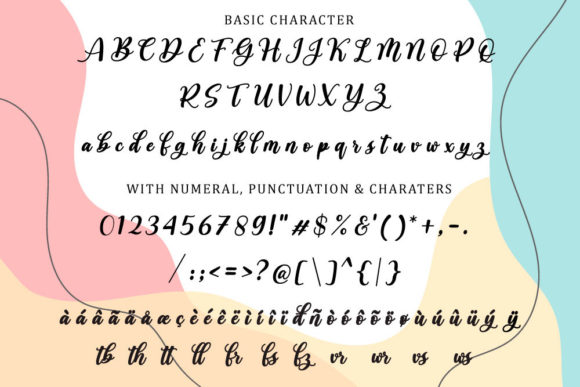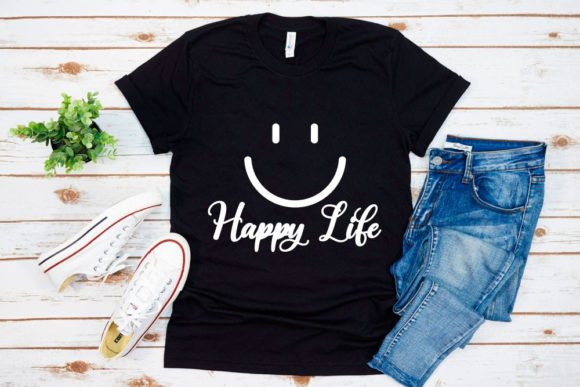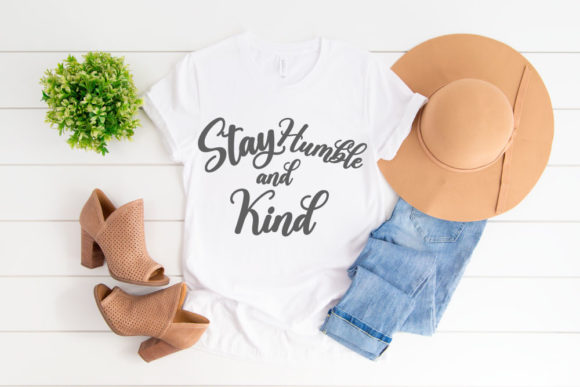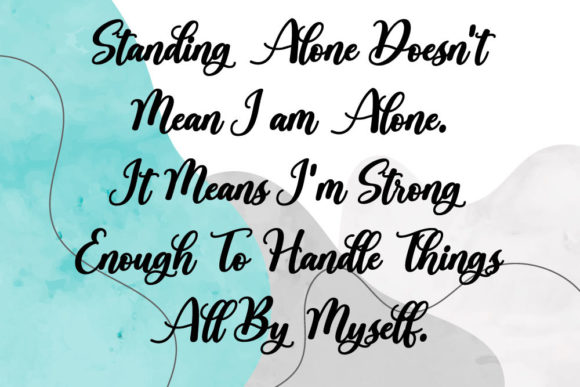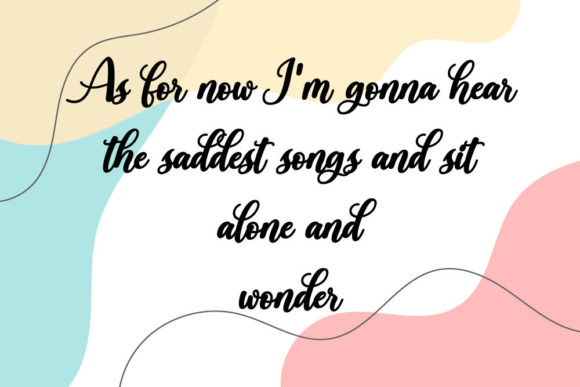
Introducing Another Day Font: Elevate Your Designs with Elegance and Class
In the world of typography, a font can make or break the aesthetic of a design. For those seeking a beautiful and refreshing look, Another Day Font is a lovely and delicate script font that exudes elegance and class. Crafted with precision, this font is perfect for designers and crafters who want to add a touch of sophistication to their projects.
The Story Behind Another Day Font
Another Day Font was particularly designed for individuals who require a font that not only looks stunning but also complements their design needs. The creators of this font aimed to produce a typeface that would be both versatile and visually appealing. The result is a script font that features flowing lines, delicate curves, and a sense of movement, making it perfect for a wide range of applications.
Key Features of Another Day Font
- Elegant and Delicate: Another Day Font boasts a sophisticated and refined appearance, making it ideal for designs that require a touch of luxury.
- Script Style: The font features a beautiful script style that adds a personal and creative touch to any design.
- Versatile: Another Day Font can be used for various projects, from wedding invitations and branding materials to packaging and digital media.
- Easy to Read: Despite its delicate nature, the font remains clear and easy to read, ensuring that your message is conveyed effectively.
Uses of Another Day Font
Another Day Font’s versatility makes it suitable for a variety of design projects. Here are some of the ways you can use this beautiful font:
- Wedding and Event Invitations: Add a touch of elegance to your wedding or event invitations with Another Day Font.
- Branding and Packaging: Use the font to create a luxurious brand identity or to design high-end packaging for your products.
- Digital Media: Another Day Font can be used in digital media, such as social media graphics, blog headers, and email newsletters.
- Stationery and Print Materials: The font is perfect for designing business cards, letterheads, and other print materials that require a professional touch.
Tips for Using Another Day Font Effectively
To get the most out of Another Day Font, consider the following tips:
- Pair with Complementary Fonts: Combine Another Day Font with sans-serif fonts to create a striking contrast and add visual interest to your design.
- Use for Headings and Titles: The font is perfect for headings and titles, so use it to create a stunning first impression.
- Experiment with Colors: Another Day Font looks great in a variety of colors, so don’t be afraid to experiment and find the perfect hue for your design.
| Font Name | Another Day Font |
| Author | Crafty Files |